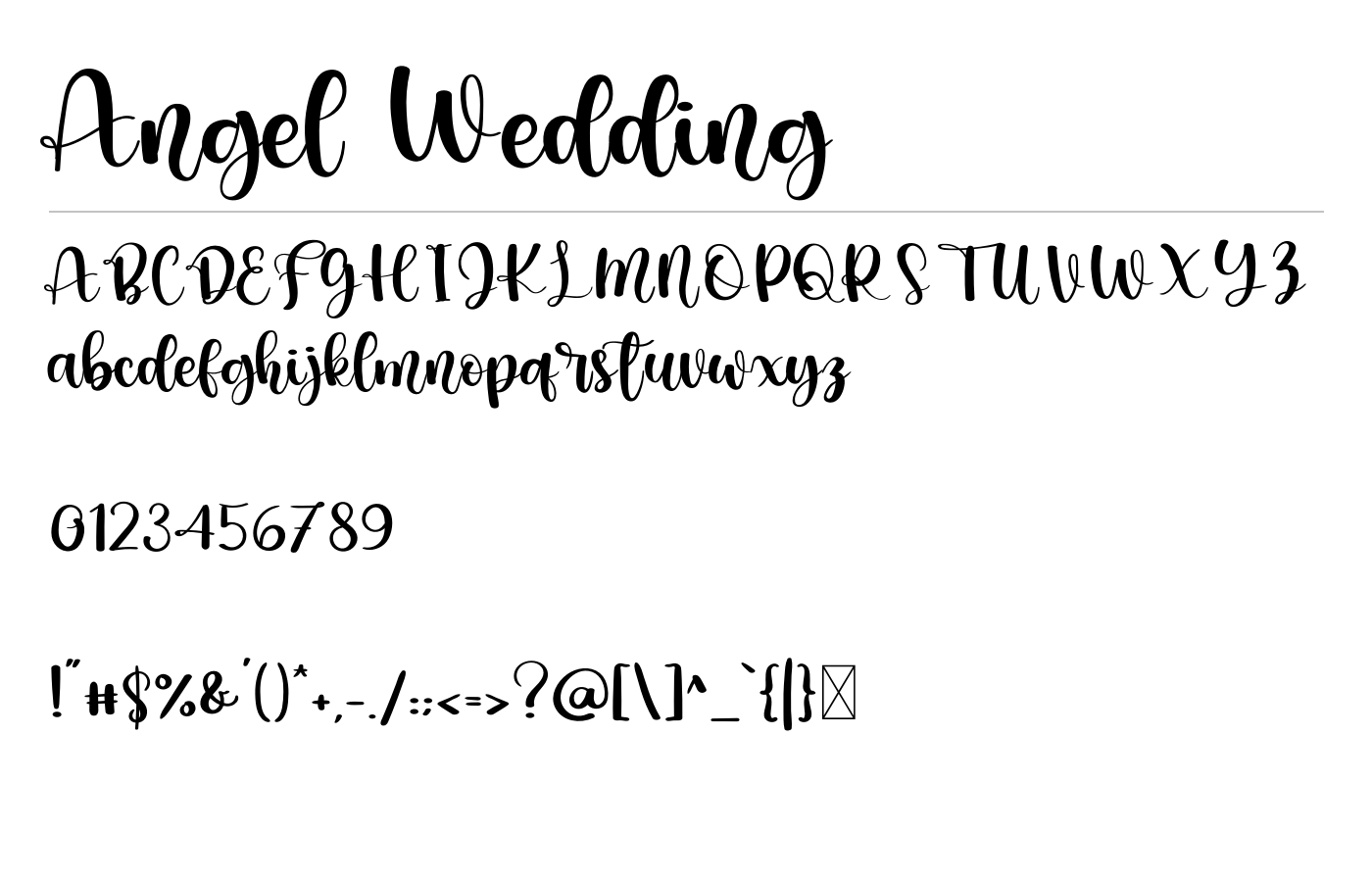
Angel Wedding Font is a stylish script font with a playful and elegant handwritten feel. Featuring flowing curves and a mix of thick and thin strokes, it works beautifully for wedding invitations, branding, and feminine design projects that want to convey warmth and charm. Its smooth, decorative style makes it perfect for headlines and logos that need a personal, graceful touch.
Angel Wedding Font